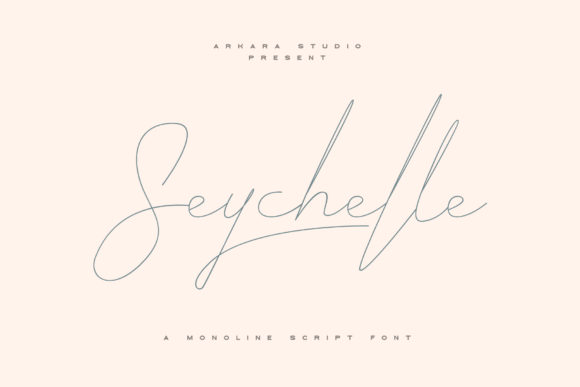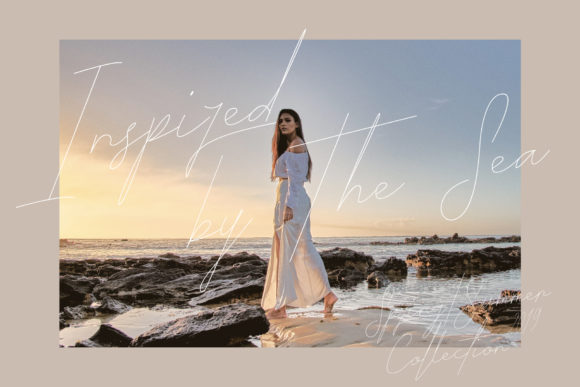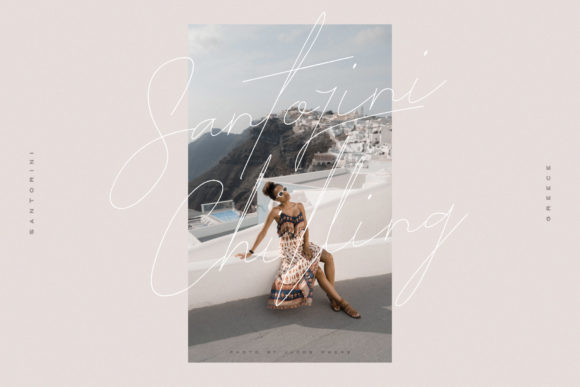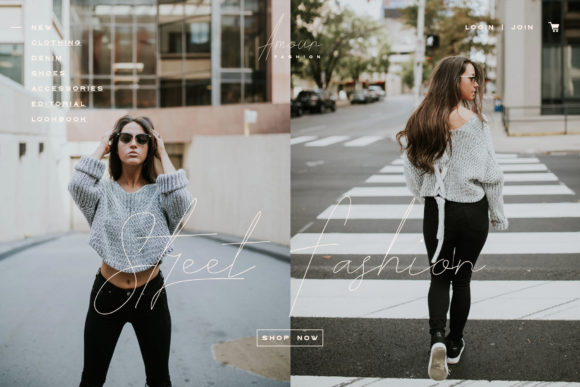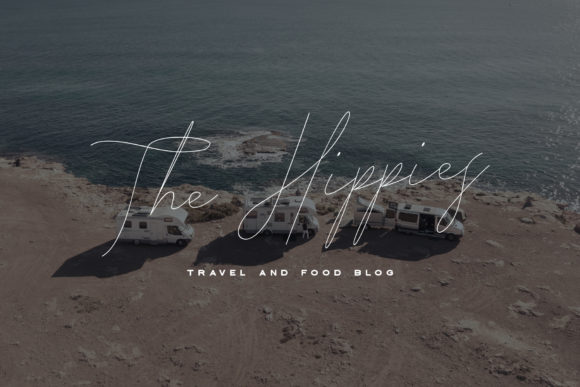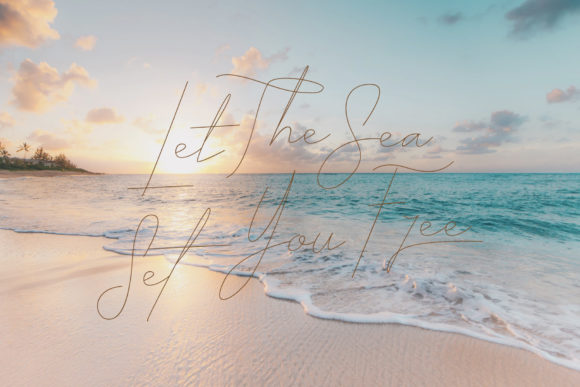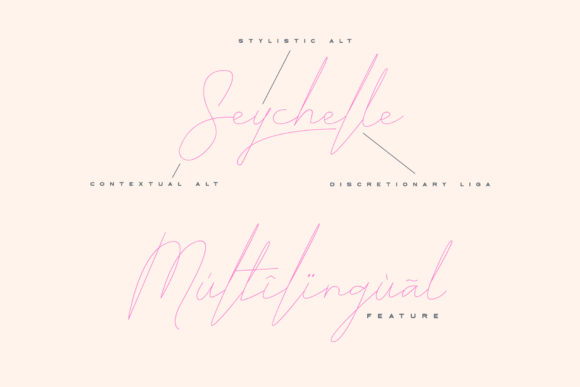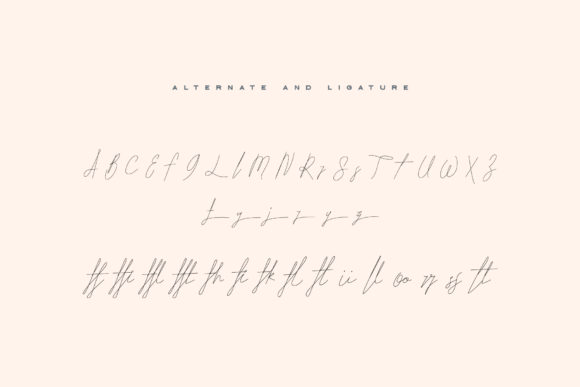
Seychelle Font
About Seychelle Font
Seychelle is a light and casual handwritten font with a beautiful feel. It will add a lovely touch to any creative project.